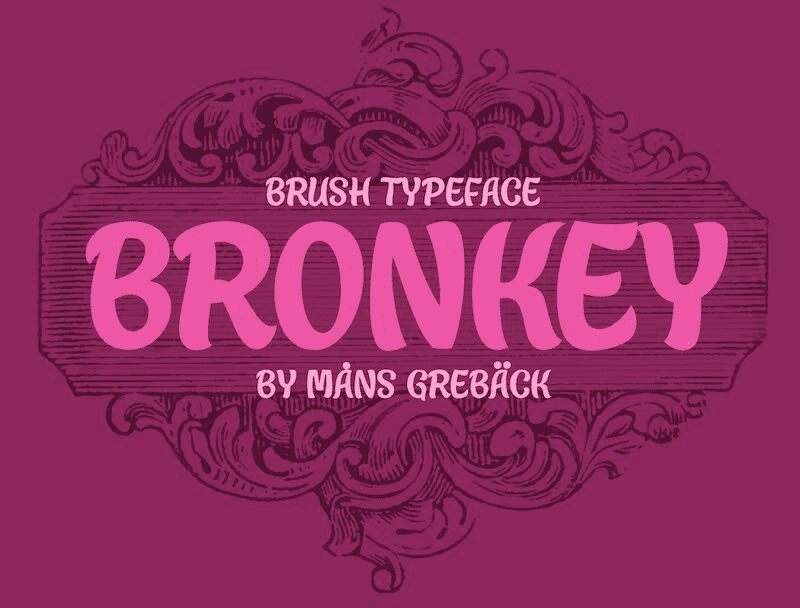
Bronkey Bold is a smooth brush font designed by Mans Greback that exudes boldness and character. Its thick strokes give your words a strong presence, making it ideal for headlines, titles, logos, and branding projects. This versatile typeface can be used in various design styles from vintage to modern and is perfect for advertising materials, packaging designs, social media graphics, and more. With its unique personality and striking appearance, Bronkey Bold has the power to captivate your audience and make an impact. Give your designs an extra edge with this bold font choice today!
In a quirky cartoon style, Bronkey is a fun and funky font with a happy swing and optimistic letterforms.